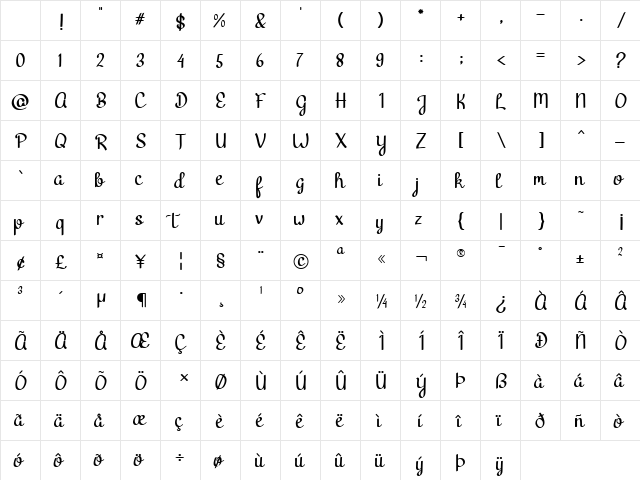
Complete kalimat Regular glyph index. Displaying only characters natively supported by kalimat Regular font.
kalimat is a composed and adaptable typeface that performs quietly and consistently across a wide range of design contexts.